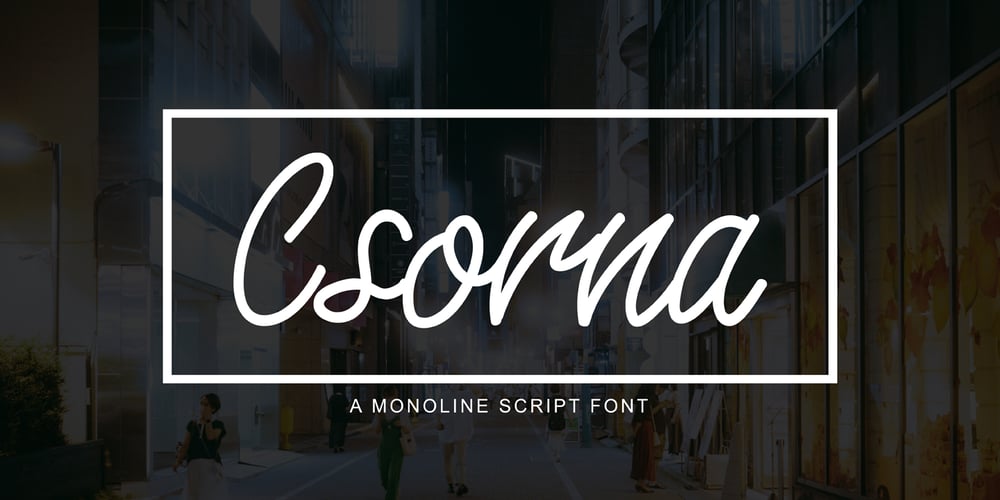
Csorna
Csorna font
Csorna Font Family was designed by Edy Suryadi and published by Edcreative. Csorna contains 1 styles and family package options. Csorna is a script typeface with a monoline style. Perfect for your next creative project like Logo Type, printed quotes, invitations, cards, product packaging, headers, letterheads, posters, clothing designs, labels and more.The name Costa itself is taken from the name of a city in Hungary and this name already has special permission